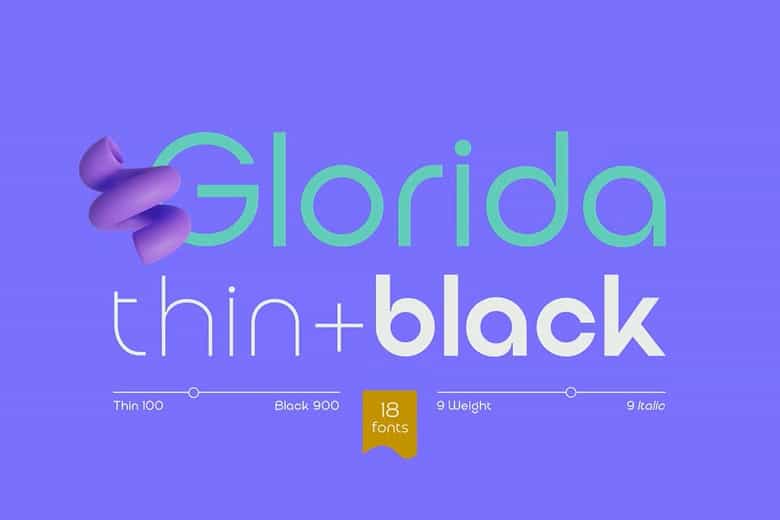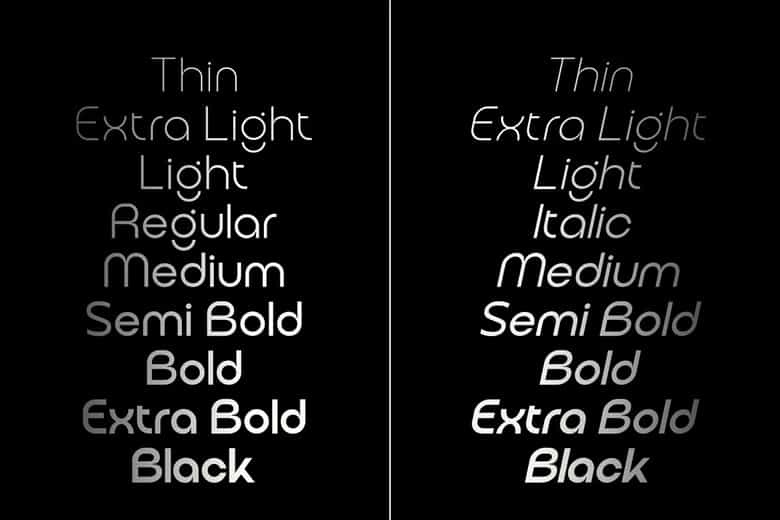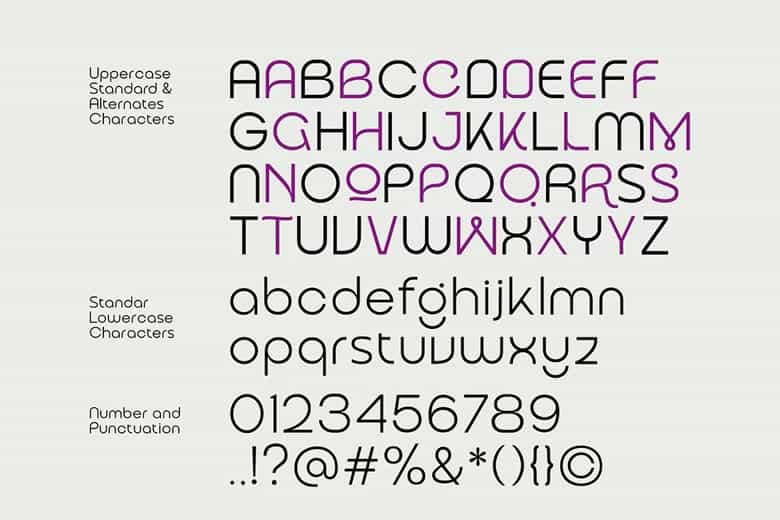
Glorida is a refined and versatile thin + black sans serif font designed to bring elegance and warmth to your projects. With 18 styles, including 8 weights (from Thin to Black) and their matching 8 italics, Glorida offers a comprehensive typographic solution for various creative needs.